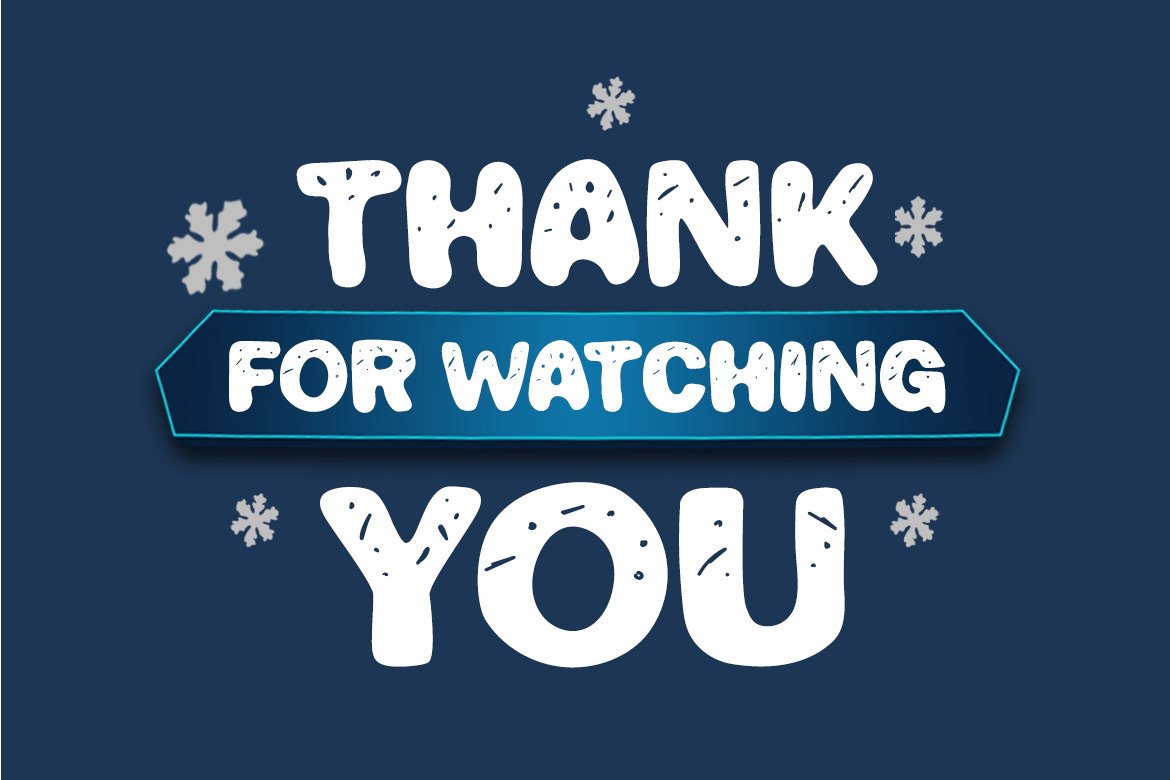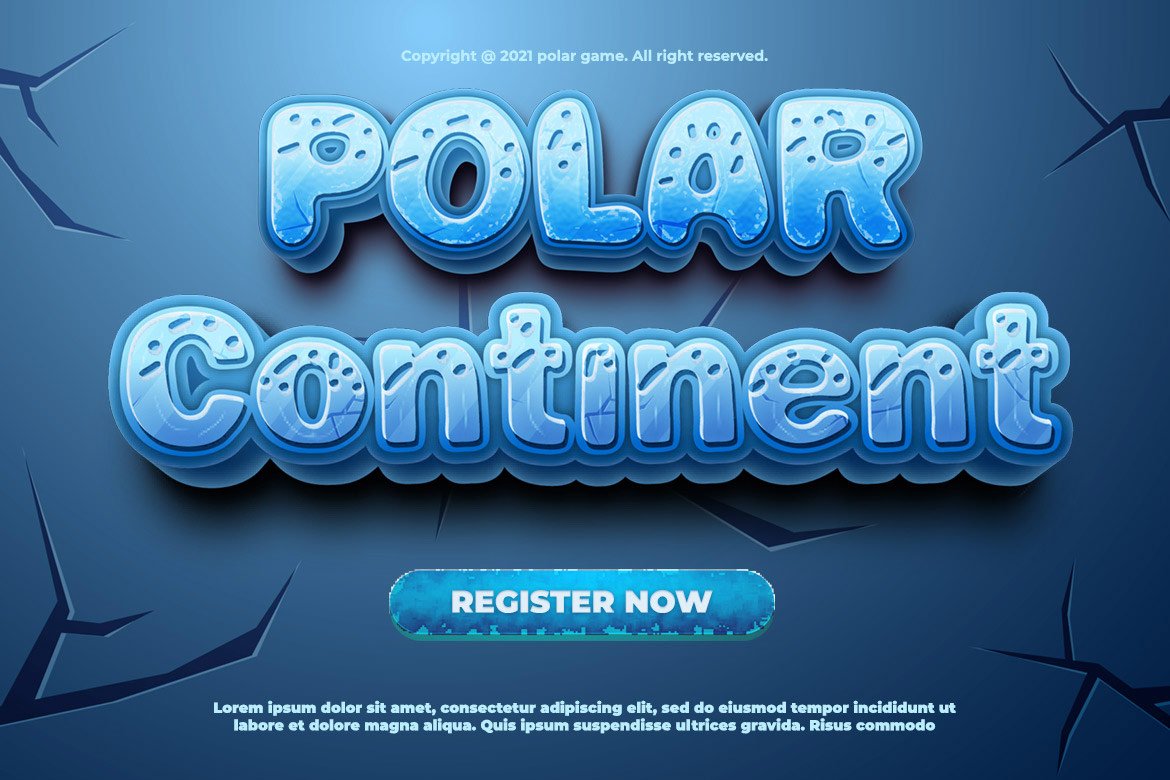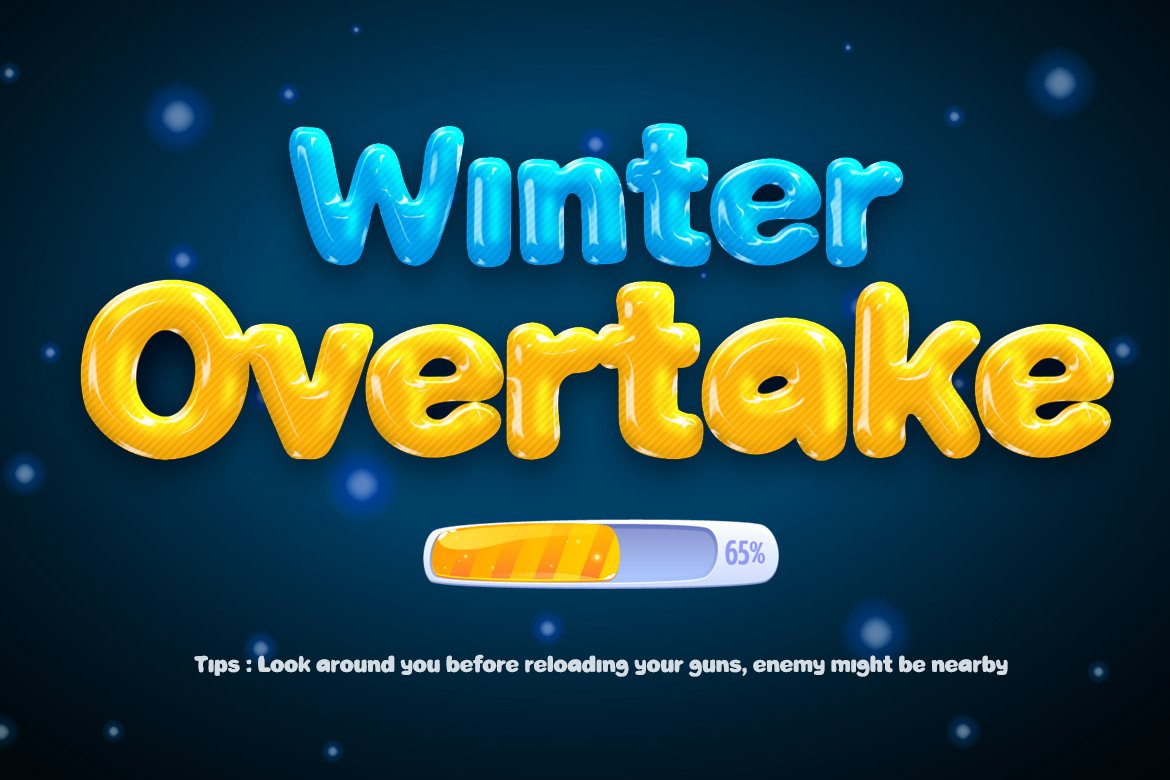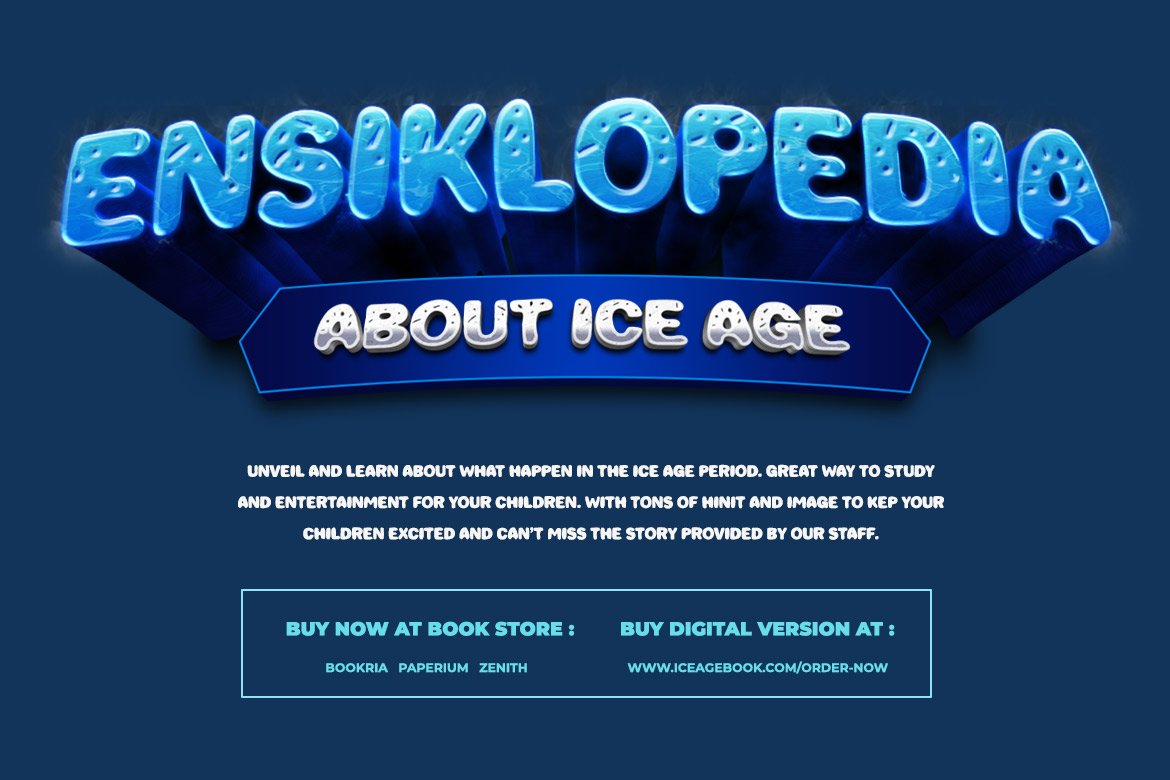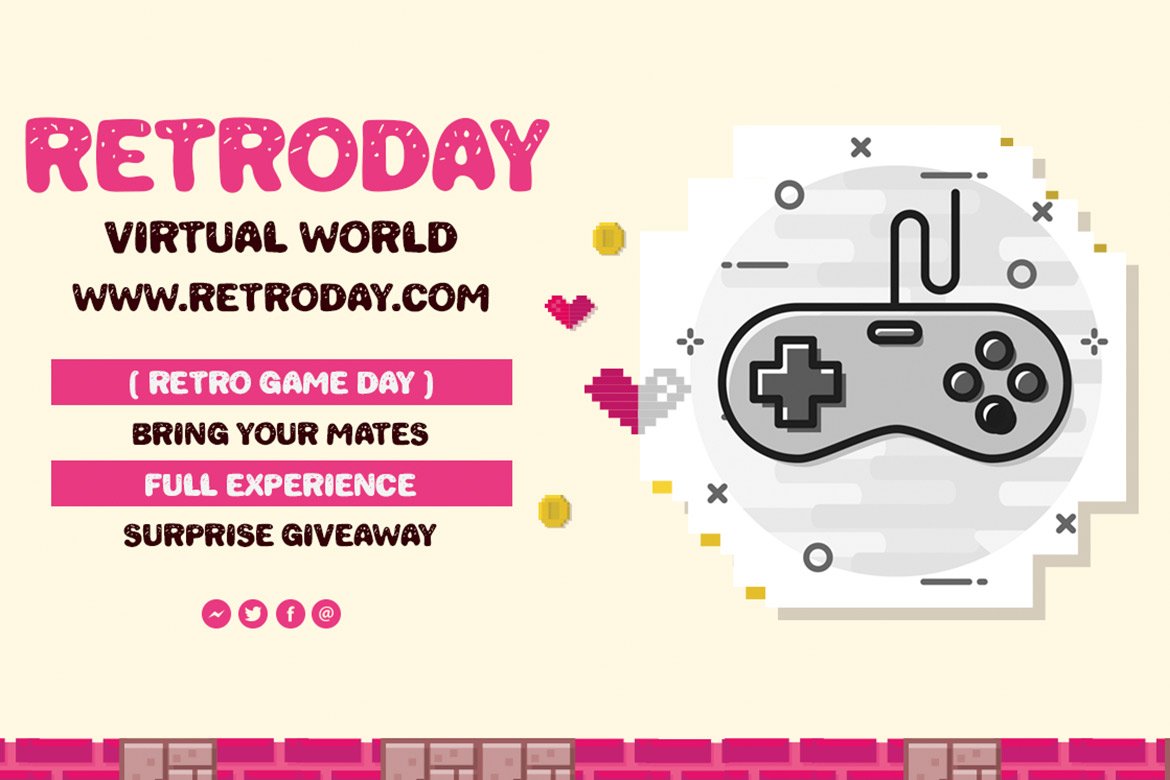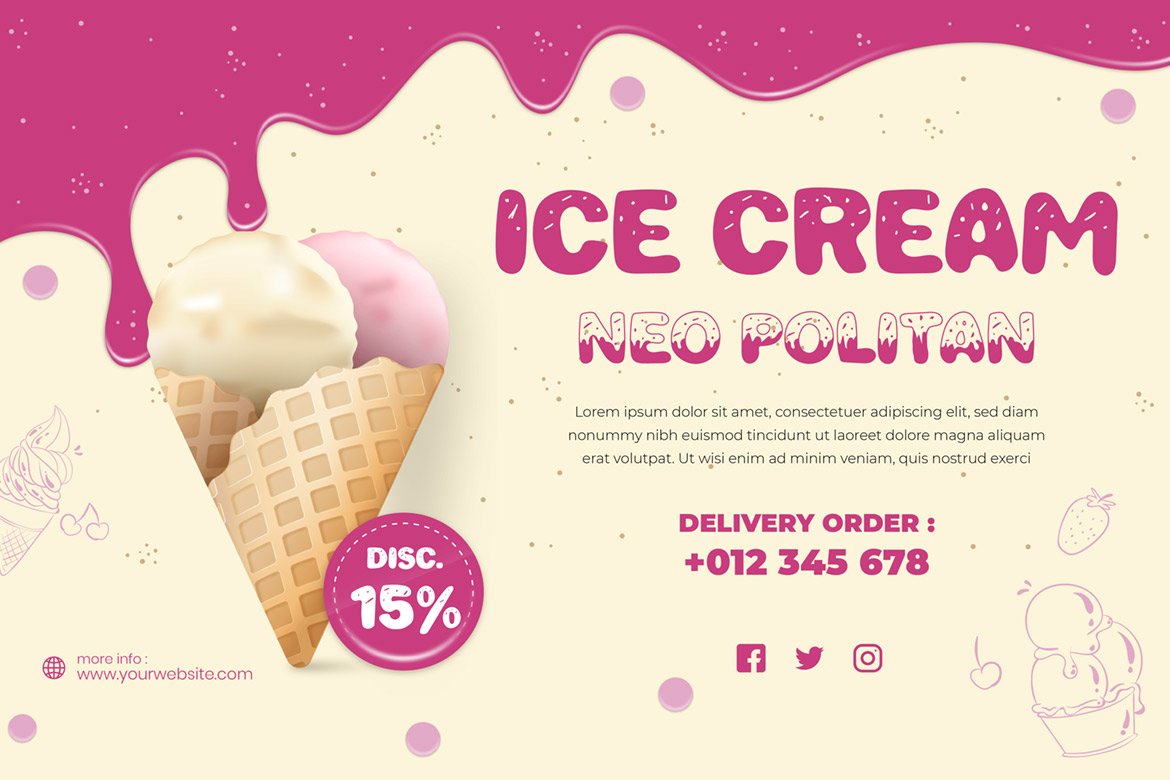
Danki
Danki, our newest font, is a display typeface created with natural hand strokes and a joyful and playful background.
This typeface has two alternates for each character, making it simple to select the appropriate character for each of your unique projects.
This font is ideal for usage in a variety of unusual graphic projects, including games, book titles, outdoor activities, posters, banners, quotes, branding, and other unique projects. So, what are you waiting for?